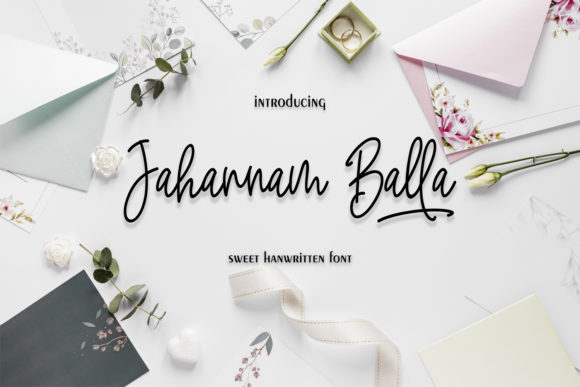
Behold, Jahannam Balla, the font that will ignite your creative passions and transform your designs into works of art. This enchanting script font, meticulously crafted by Belovestudio, exudes an aura of elegance and sophistication, making it the perfect choice for those seeking to create truly unforgettable wedding invitations.
With its delicate curves and graceful lines, Jahannam Balla dances across the page like a whisper of wind, evoking a sense of romance and timeless beauty. Its authentic feel adds a touch of intimacy and charm, making it an ideal choice for capturing the essence of your special day.
Imagine your wedding invitations adorned with Jahannam Balla's exquisite script, each letter flowing seamlessly into the next, creating a visual masterpiece that will leave your guests in awe. The font's versatility extends beyond wedding invitations, making it a stunning choice for stationary art, social media posts, and greeting cards.
Whether you're a seasoned designer or just starting out, Jahannam Balla is the perfect font to elevate your designs and leave a lasting impression. Its user-friendly nature makes it easy to incorporate into your projects, allowing you to focus on unleashing your creativity.